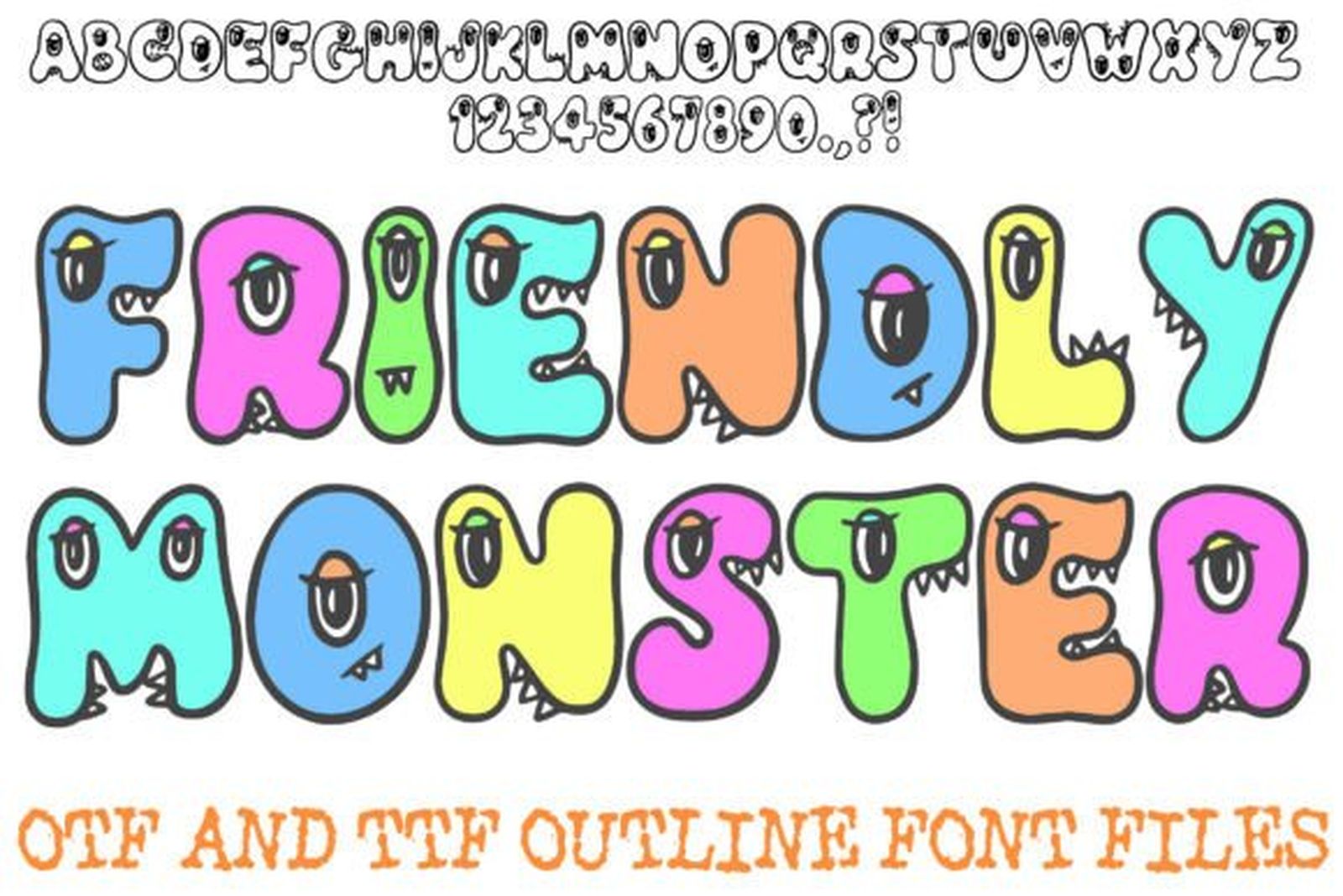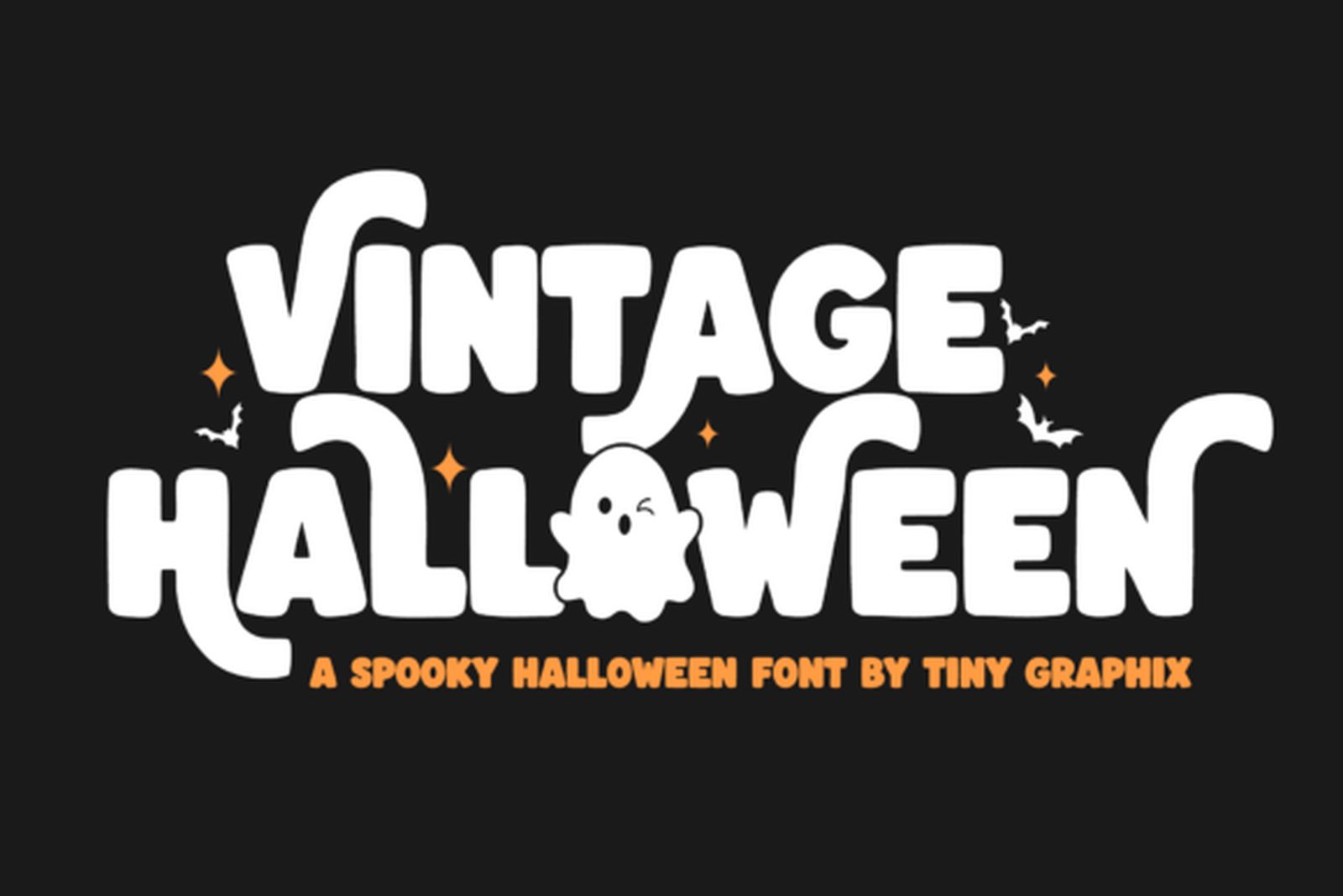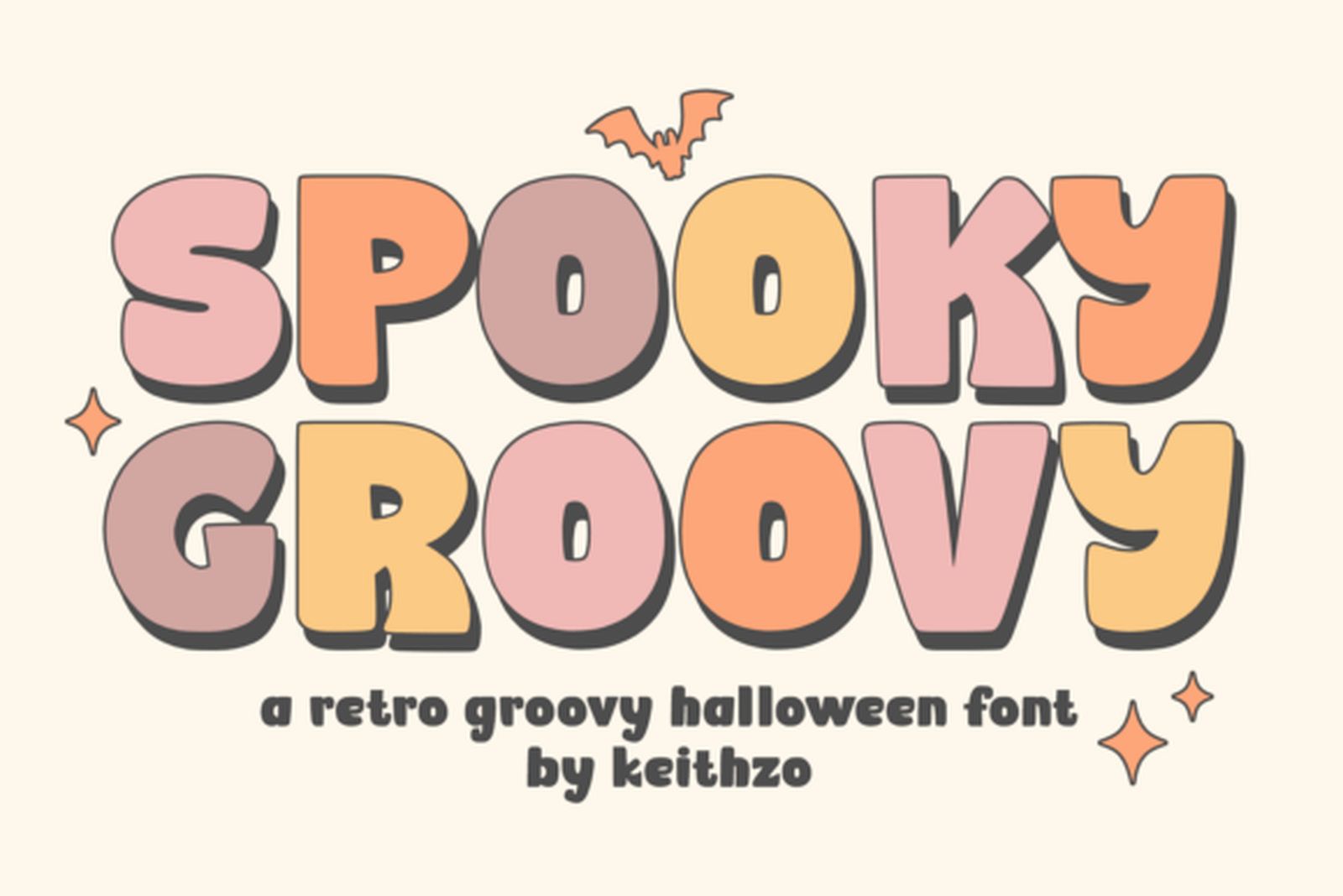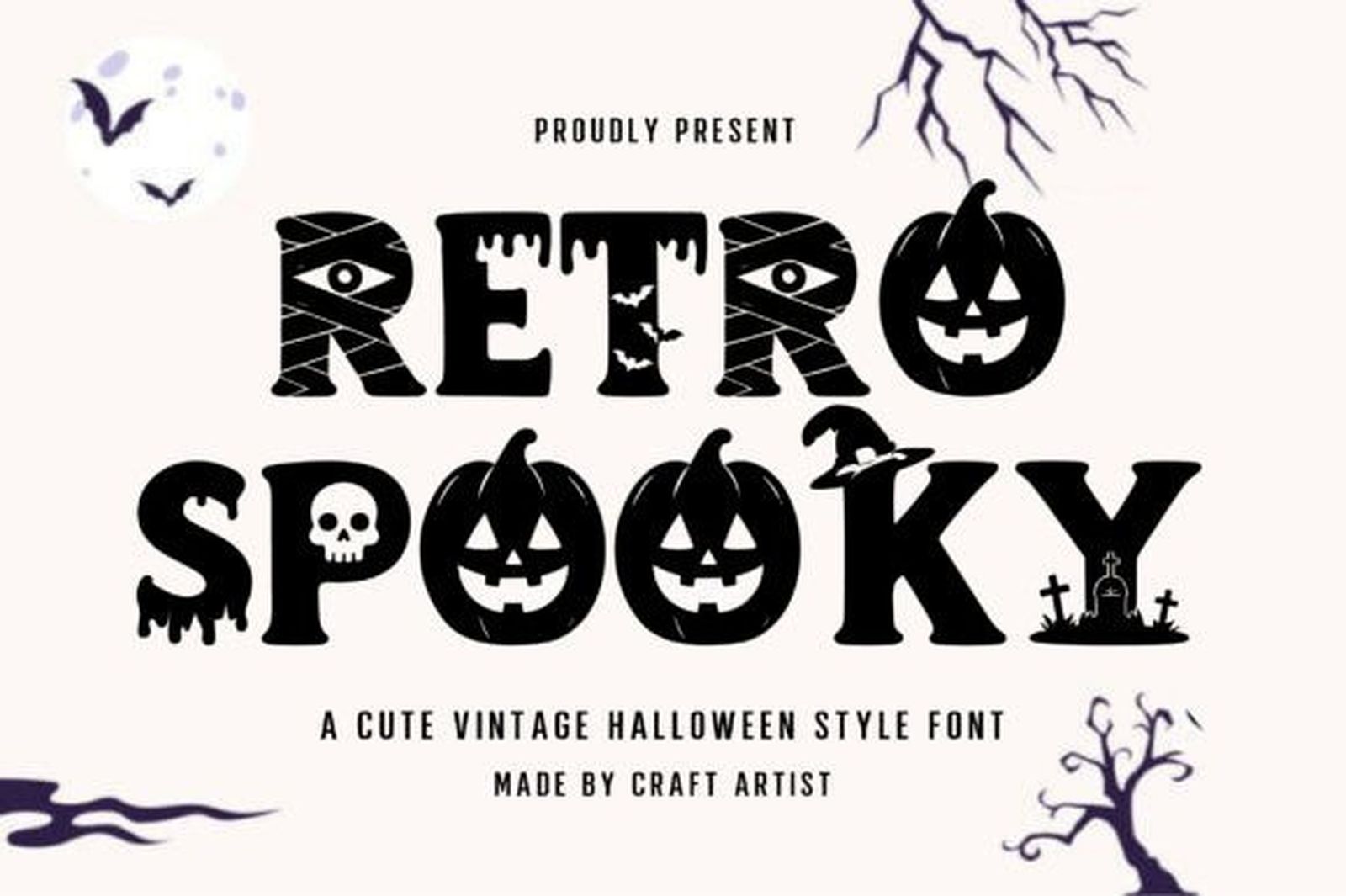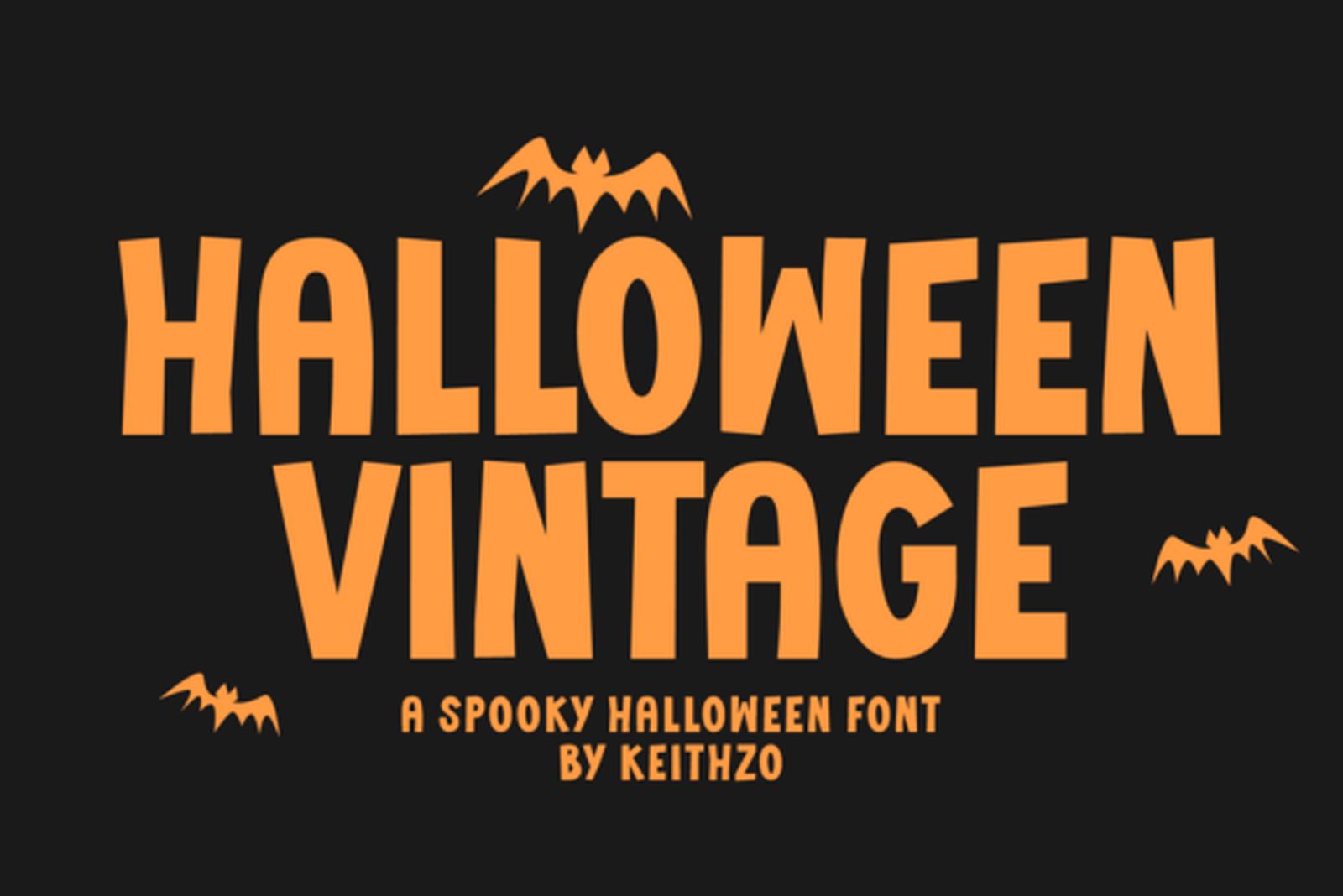
22 Spooky Halloween Fonts for Party Hosts and Crafters: Invitations, Signs and Cricut Shirts
Halloween lettering has to set the mood before anyone reads a single word. A porch sign needs to look spooky from the sidewalk, an invitation should feel like fun before the date sinks in, and a Cricut shirt has to survive weeding, pressing and more than one wash. That is why a single “Halloween font” rarely covers a whole season of projects.
This list sorts 22 Halloween fonts by the job they do best: party invitations and treat bags, vintage and retro designs, porch signs and posters, and craft projects such as shirts and tumblers. Each pick comes with a short note on the letter shapes, where the style holds up and where it starts to fall apart.
What Makes a Halloween Font Work
Most Halloween fonts fall into three moods. Cute styles use round shapes, bouncy baselines and little ghosts or pumpkins tucked into the letters, which suits kids’ parties and treat bags. Vintage styles borrow from old horror posters and seventies prints, so they feel nostalgic rather than frightening. Scary styles lean on drips, cracks, rough brush strokes and sharp spurs, and they belong on signs, posters and haunted-house decor.
The mood is only half of the choice. Drips need extra space under each line, textured fills disappear when a letter is cut from vinyl, and some horror fonts come in capitals only. Knowing where the lettering will end up (paper, a screen, a porch or a T-shirt) narrows the list faster than scrolling through previews.
Halloween Fonts for Party Invitations and Treat Bags
These fonts keep Halloween friendly. They read well at card size, look good on kraft paper and labels, and set a playful tone for family parties and classroom events.
1. Halloween Party Font
by Plerndigiart
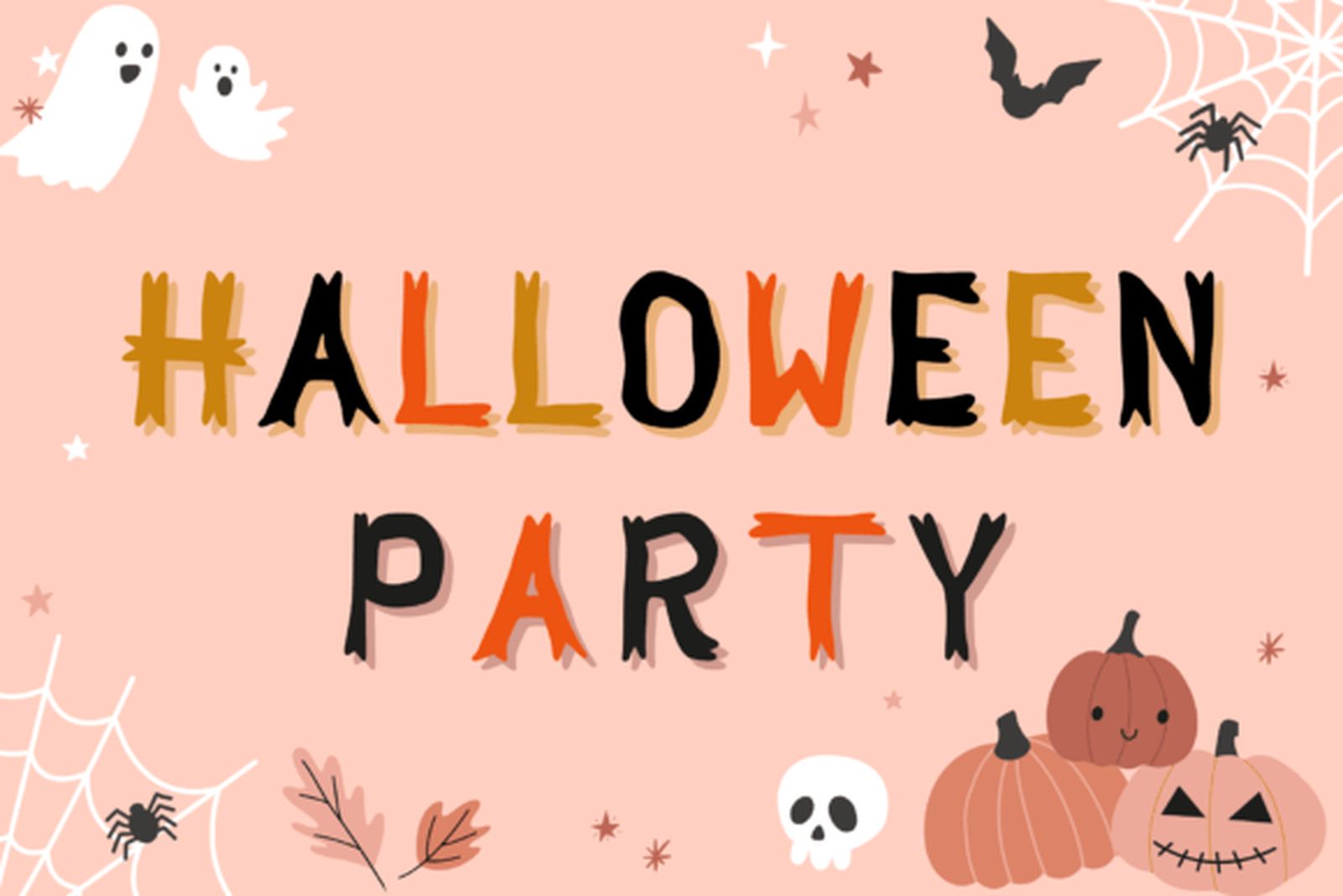
Best For: party invitation headlines, banners, treat bag labels
Halloween Party Font has bold, wide capitals with slightly roughened edges, and the preview sets it among ghosts, pumpkins and cobwebs. The letters stand upright and evenly spaced, so the word “party” reads as an invitation rather than a warning.
Give it the top line of the card and let a plain companion carry the date and address. It holds up on a printed banner too, because the heavy strokes survive being seen from across a room.
2. Monster Halloween Font
by Reyrey Blue
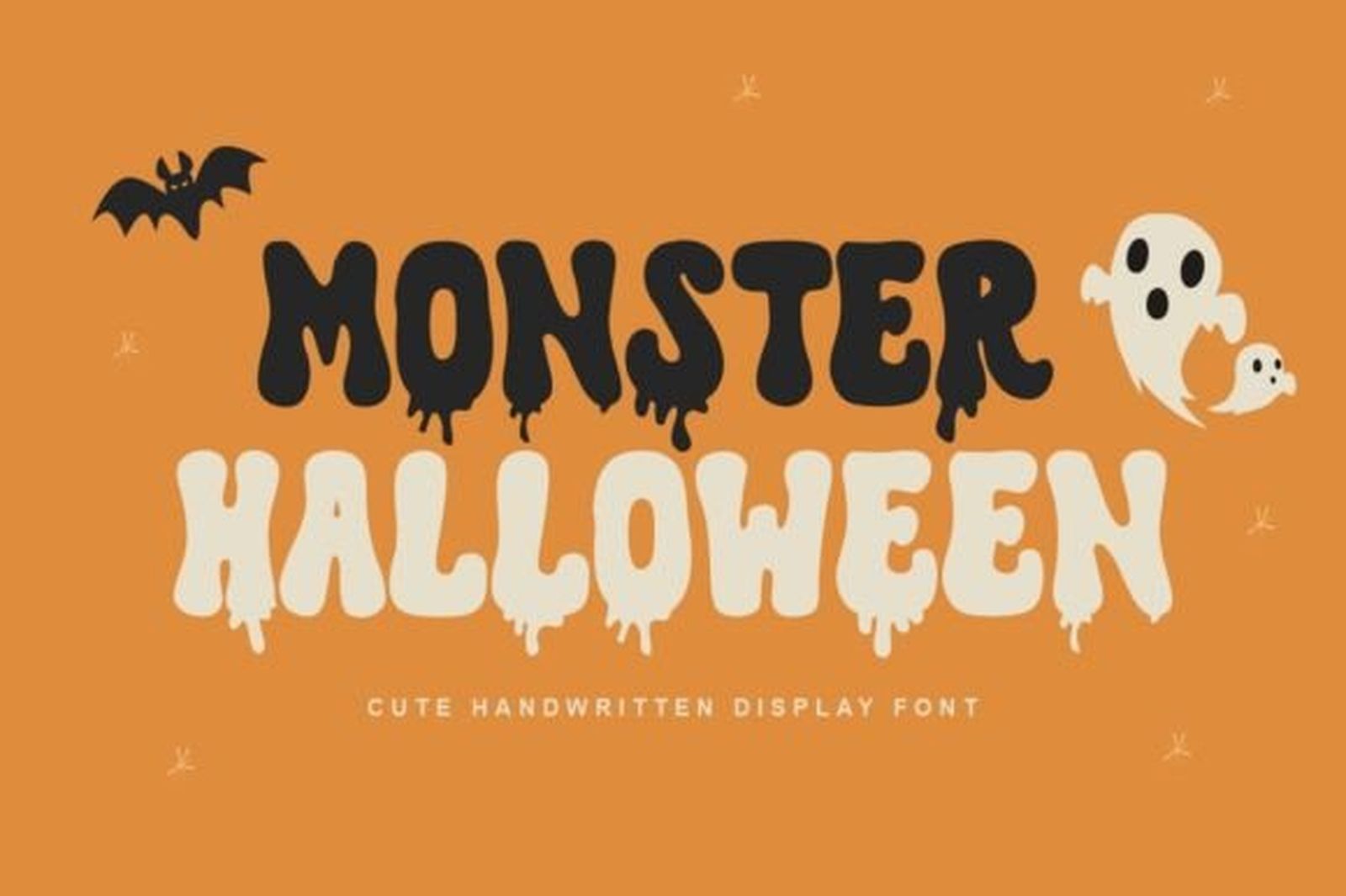
Best For: kids’ party invitations, treat bag tags, classroom signs
The preview calls it a cute handwritten display font, and that is exactly how it reads. Chunky hand-drawn capitals wobble a little on the baseline, and soft drips hang from the bottoms of the letters without turning gory.
It is at its best in short phrases like “Trick or Treat” or a child’s name on a candy bag. Keep a little extra space between lines so the drips do not touch the letters below.
3. Halloween Cat Font
by anamalmusyaffaCreative
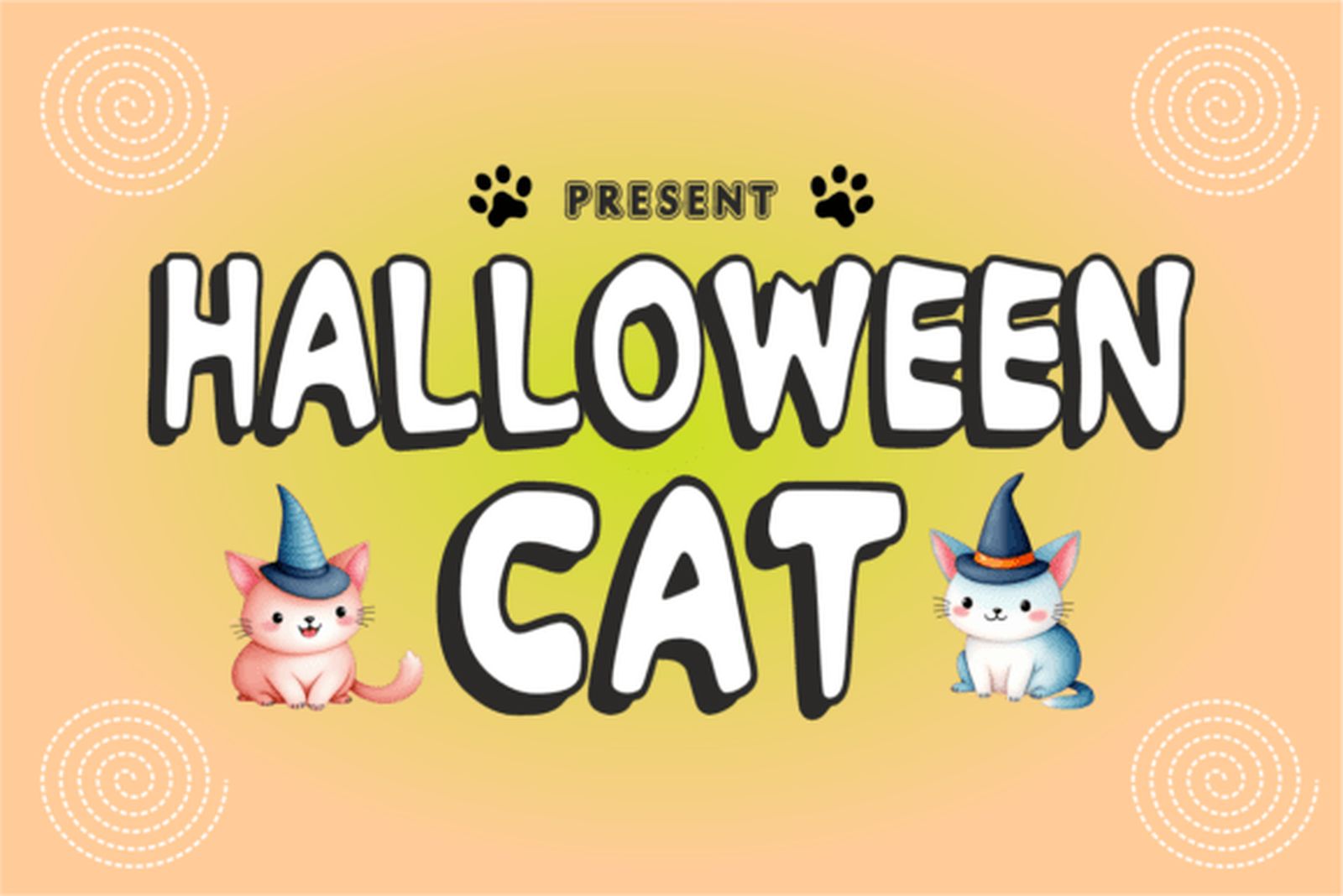
Best For: invitation details, menus, printable party signs
Halloween Cat Font is the calm one in this group: a dense, rounded sans with no drips or added doodles. The shapes are simple and heavy, so the letters stay readable even at small sizes on a printed card.
Use it as the workhorse next to a decorative headline. Date, time, address and RSVP lines all sit comfortably in it, and it keeps a busy invitation from looking cluttered.
4. Hello Witch Font
by VividDoodle
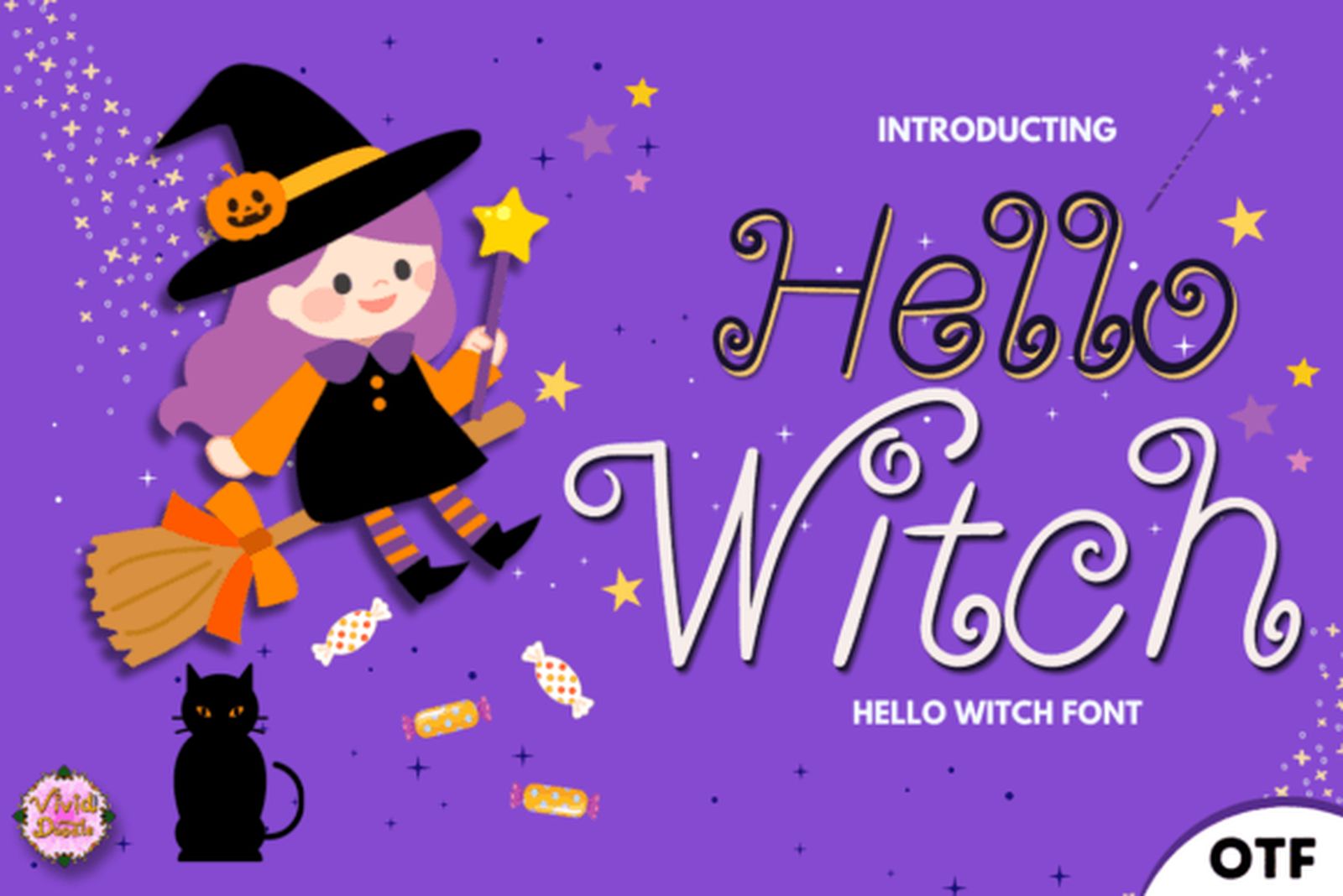
Best For: Halloween cards, witchy party themes, social media graphics
Hello Witch Font is a flowing script with long loops and swashy capitals. The mood is sweet rather than sinister, closer to a storybook witch than a horror film, and the preview pairs it with a cartoon witch on a broom.
The long loops need room, so give it generous line spacing and avoid stacking three lines tightly. One or two words, such as a guest’s name or “Hello Witches”, show it off better than a full sentence.
5. Spooky Branch Font
by Rashdrawn
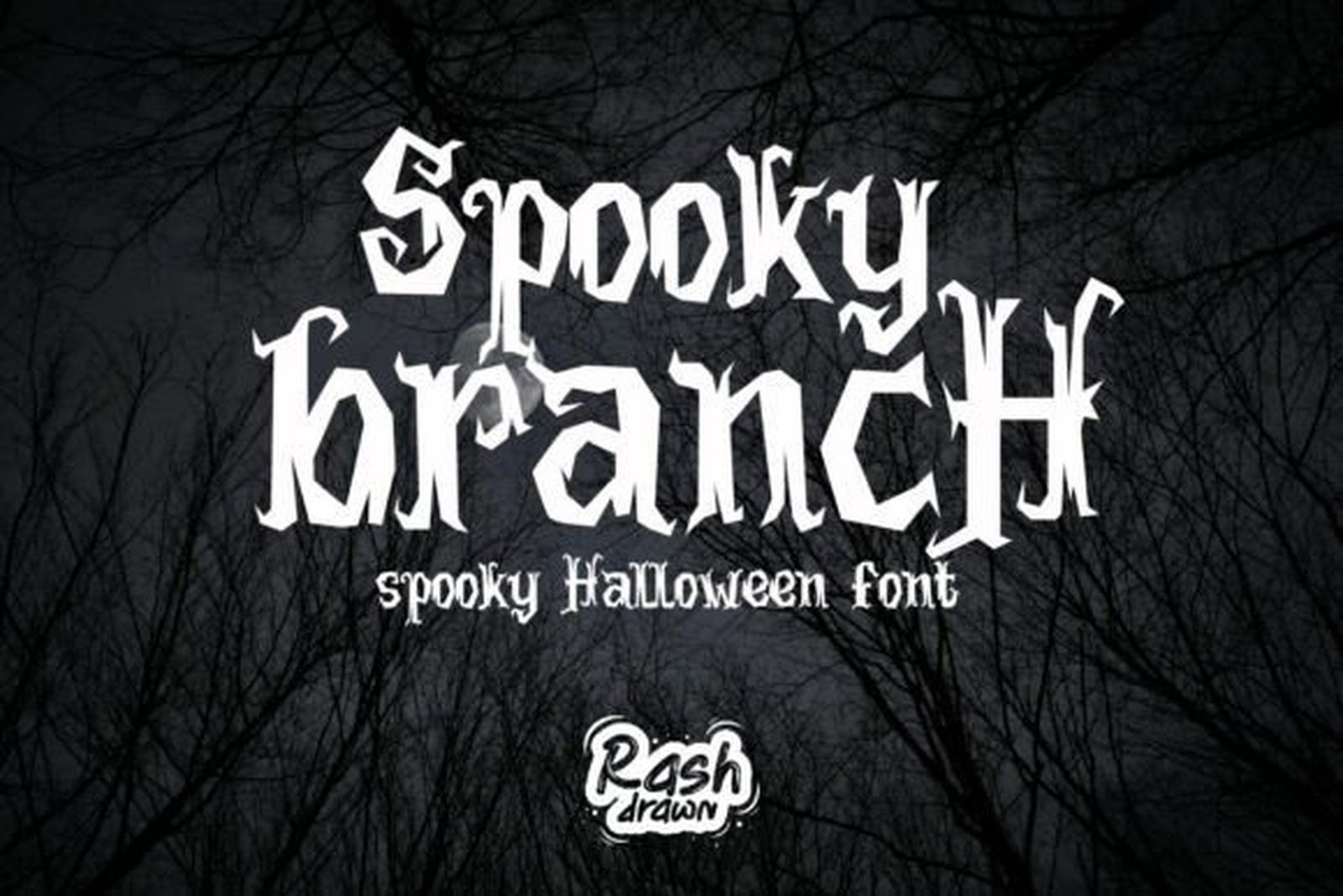
Best For: handwritten card messages, gift tags, moody social posts
Spooky Branch Font looks written with a dry brush: the strokes are rough at the edges, uneven in weight and a little scratchy, like twigs dragged across paper. It sits between the cute and the scary styles, so it works for grown-up parties as well.
It shines in white on a dark background, the way the preview shows it. On pale paper, pick a deep color such as black or plum so the rough edges keep their texture instead of looking faded.
Pick the Mood First
The quickest way through a long list of Halloween fonts is to decide on the mood before looking at letters: friendly, vintage or truly scary. Then match the font to where the lettering will live, whether that is a printed invitation, a porch sign or a vinyl shirt. With one decorative font and one plain companion, most Halloween projects come together in an evening.